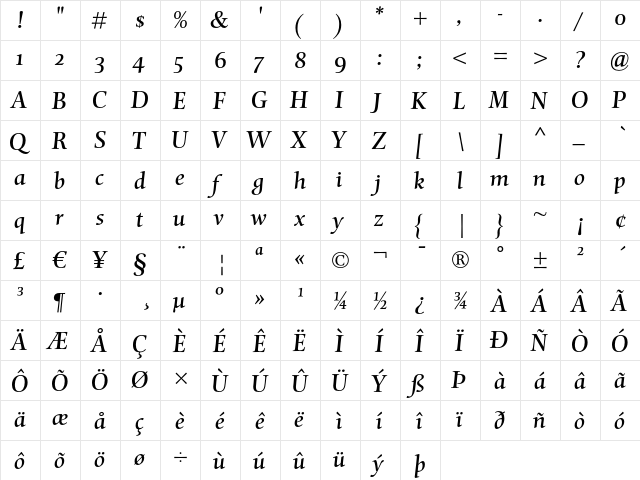
Mentor Italic OsF
Design Context for Mentor Typeface
Mentor is a composed and adaptable typeface that performs quietly and consistently across a wide range of design contexts. The slanted form adds forward momentum and visual energy.
Pro Tip: Try Mentor for annotation and caption copy alongside an upright companion — the contrast in angle creates a dynamic but ordered typographic system.